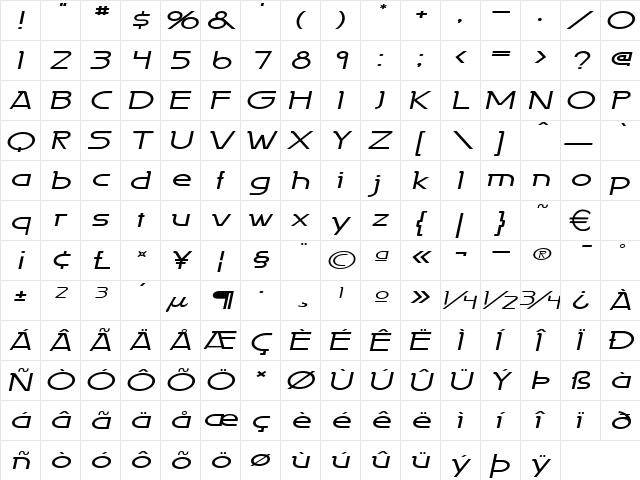
PersiaExtended Italic
Design Context for PersiaExtended Typeface
PersiaExtended is a composed and adaptable typeface that performs quietly and consistently across a wide range of design contexts. The slanted form adds forward momentum and visual energy.
Pro Tip: Try PersiaExtended for annotation and caption copy alongside an upright companion — the contrast in angle creates a dynamic but ordered typographic system.